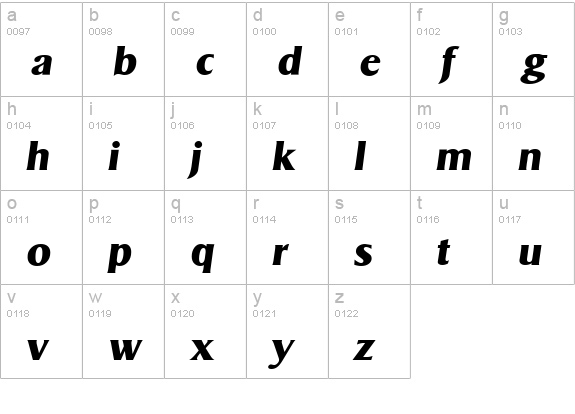
SigvarSerial-Xbold-Italic is a distinctive, italic variant in the SigvarSerial typeface family \xE2\x80\x94 well suited to design and typography projects.
The SigvarSerial-Xbold-Italic font is a striking and bold typeface that exudes modernity and sophistication. Its sleek and elegant design makes it perfect for creating eye-catching headlines, titles, and branding materials. The italicized style adds a touch of flair and drama to any text, making it stand out on the page. What makes SigvarSerial-Xbold-Italic even more appealing is that it is available for free download at FontsMarket.com. This means that you can easily access this stylish font and use it in your projects without any cost. Whether you're designing a website, crafting marketing materials, or working on a creative project, SigvarSerial-Xbold-Italic is a versatile choice that will elevate your designs to the next level. Don't miss out on the opportunity to enhance your typography with the SigvarSerial-Xbold-Italic font. Download it for free today and make a bold statement with your text!